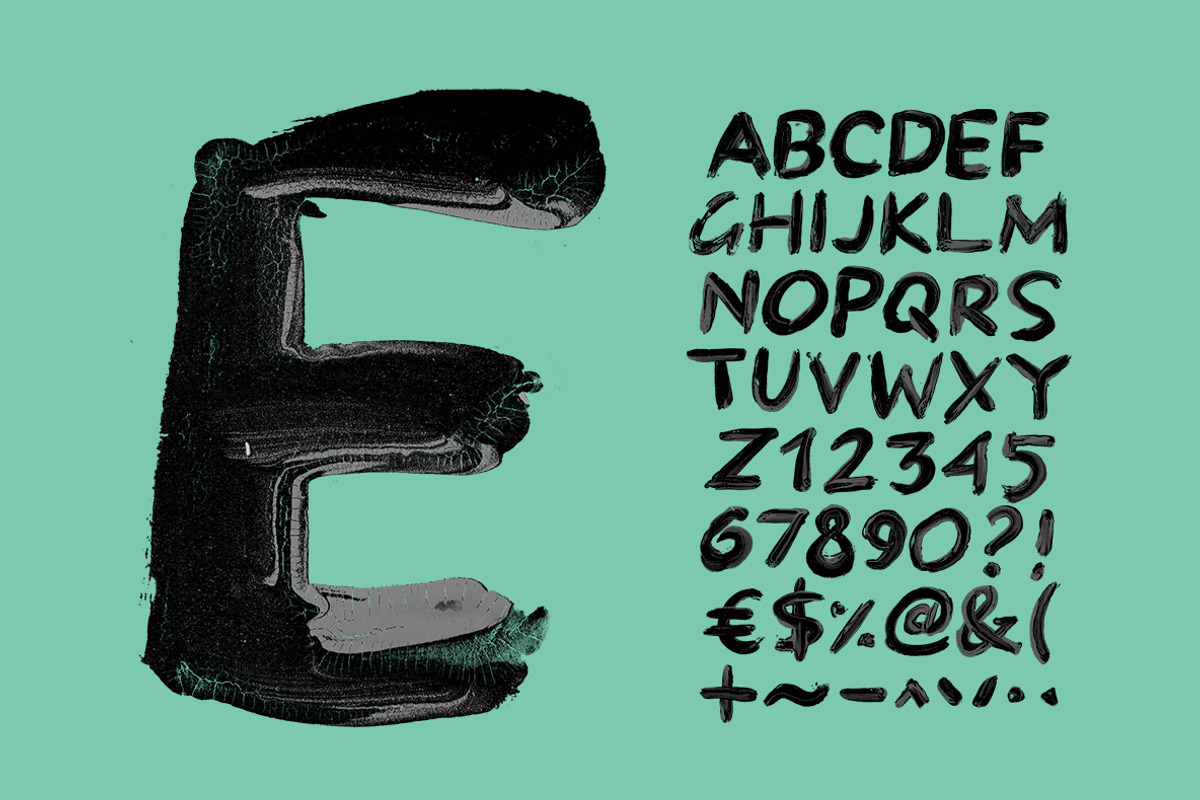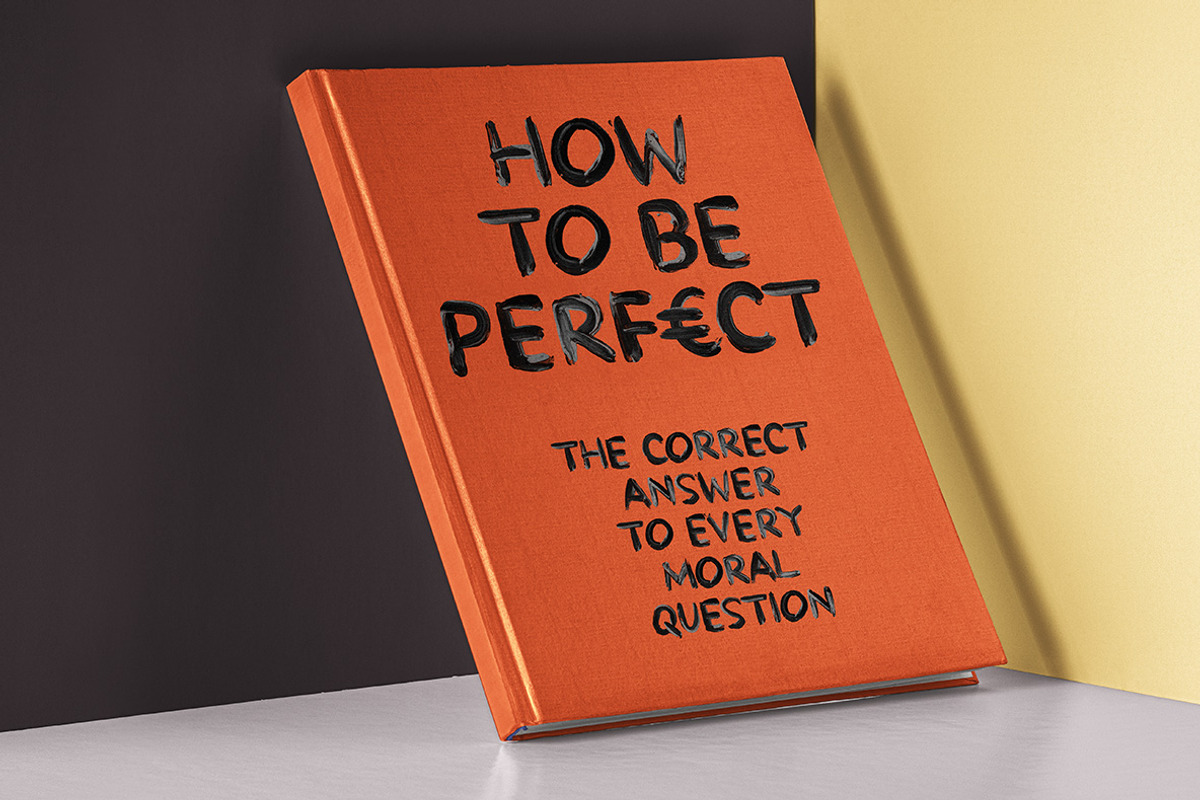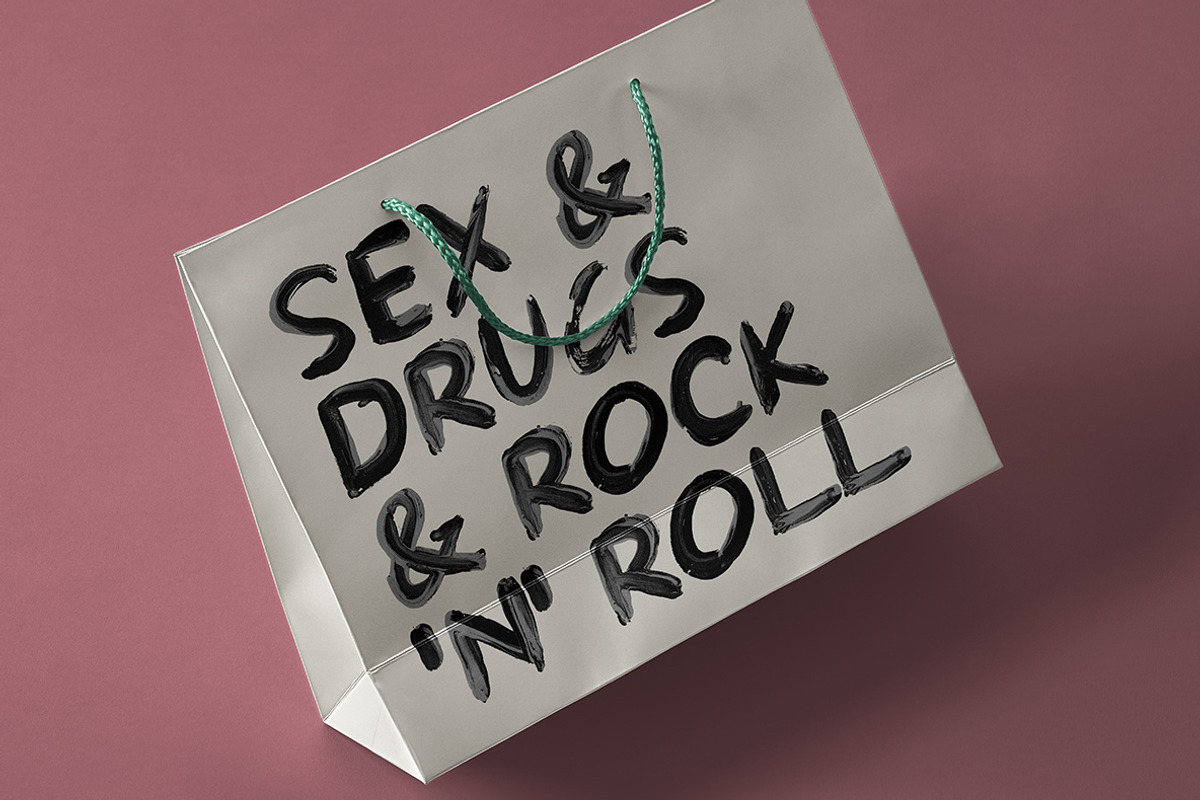
Black Paint Font
Black Paint is a high-definition OpenType-SVG brush font. Contains uppercase characters, numerals and basic punctuation. (Draw height roughly 800 pixels). All letters and glyphs that comprise this font you can see on the preview.